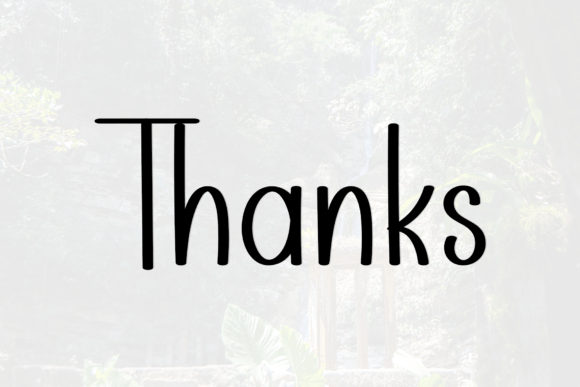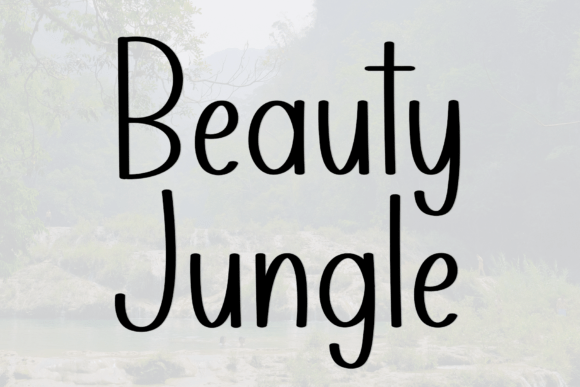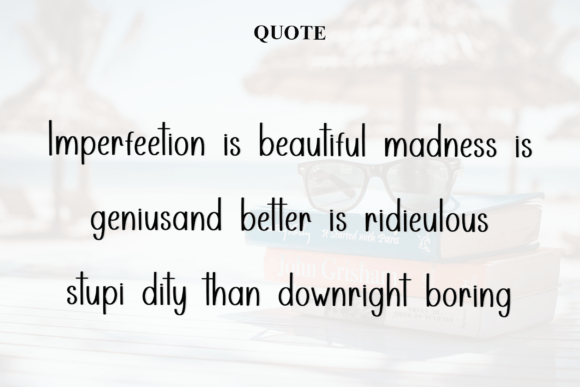
Introduction to Jungle Adventure Font
Jungle Adventure is a sweet and friendly handwritten font.
Key Features of Jungle Adventure Font
Why Choose Jungle Adventure Font?
Jungle Adventure Font offers exceptional quality and versatility, making it a valuable addition to your design toolkit. Whether you’re creating for personal projects or commercial use, Jungle Adventure Font delivers professional results.